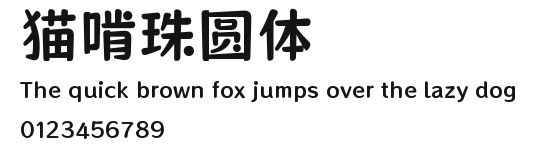
猫啃珠圆体 Preview
• Font Name: 猫啃珠圆体
• Font ID: MaokenZhuyuanTi Regular:Version 1.000
• Full Font Name: 猫啃珠圆体 Regular
• Version: Version 1.000; 20230222
• PostScript Name: MaokenZhuyuanTi-Regular
• Character Count: 14329
• Designer: Fontworks公司、龙珠体补字小组: ZERO子、时光羊、荆南、频凡、刘鹏、Little White Dog、奈白不弍、帆影Magmeta、白日月球、ChaoTawei、雨三(排名不分先后)
About 猫啃珠圆体.ttf
猫啃珠圆体.ttf is a modern, elegant sans-serif font designed for ultimate readability and visual harmony. Perfect for branding, headlines, web design, and print materials.